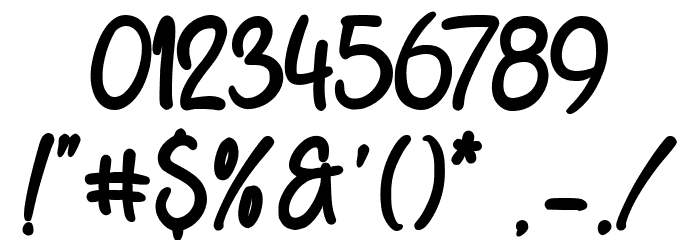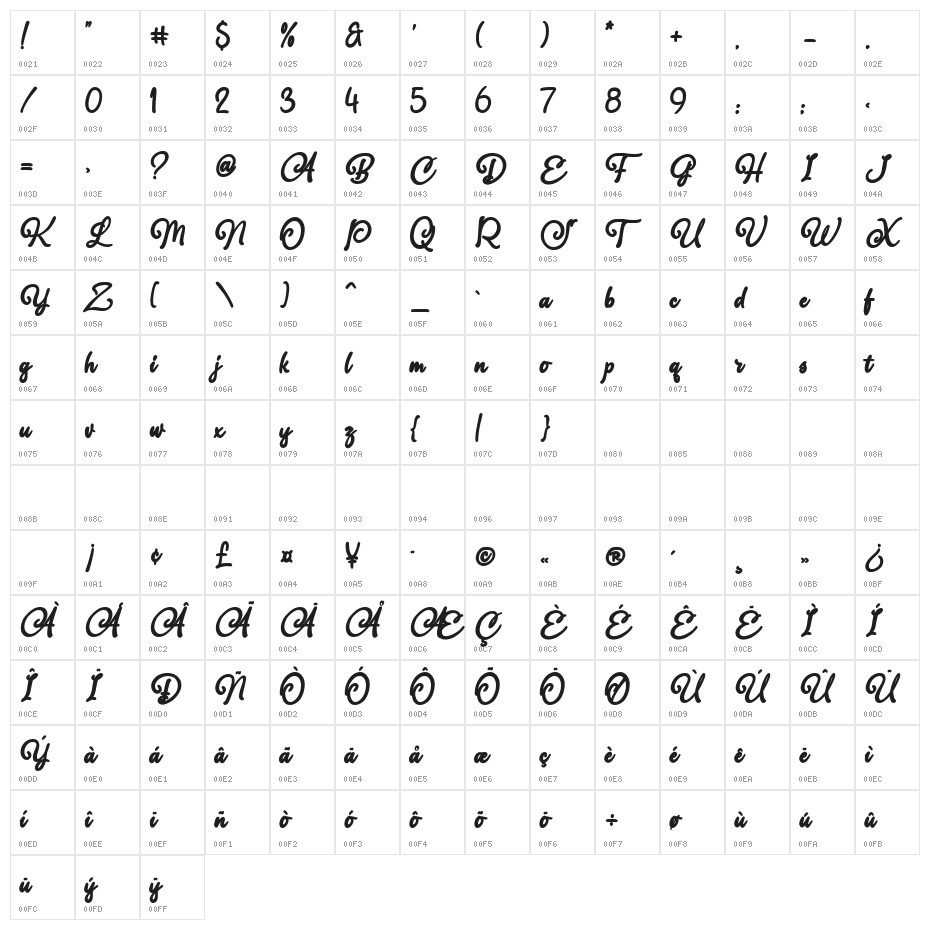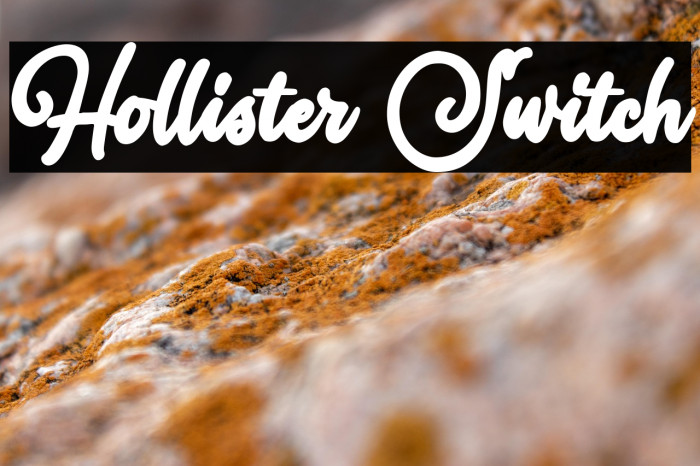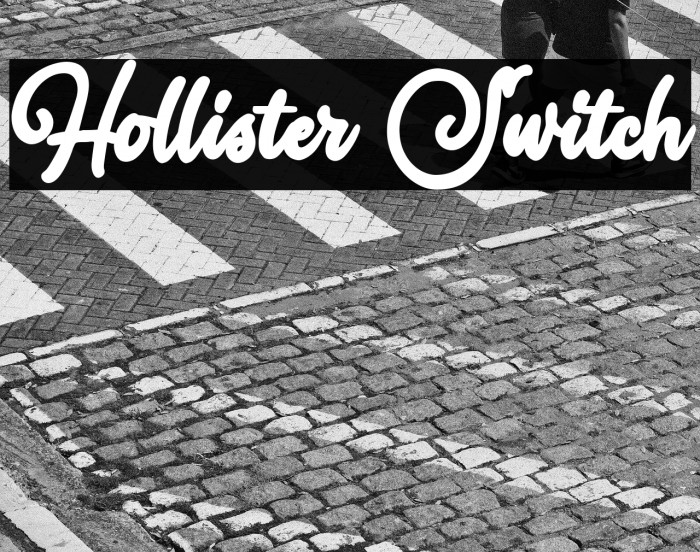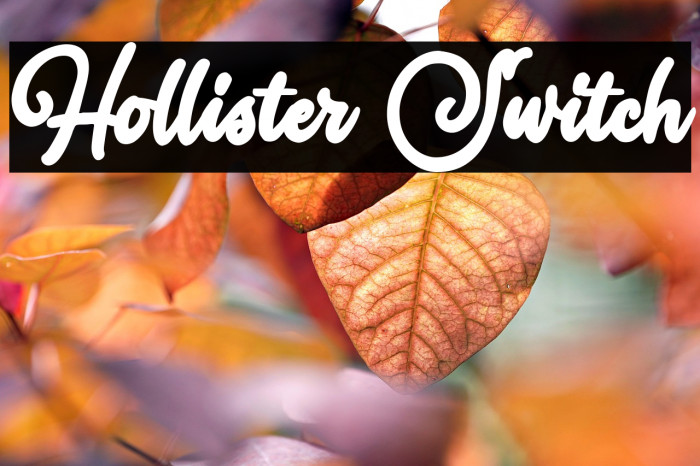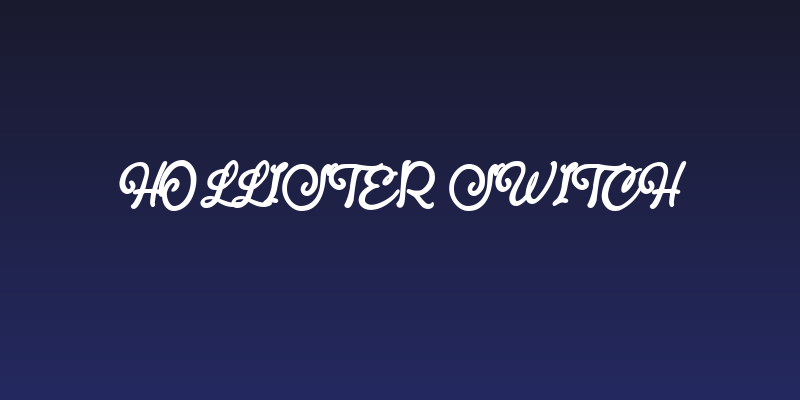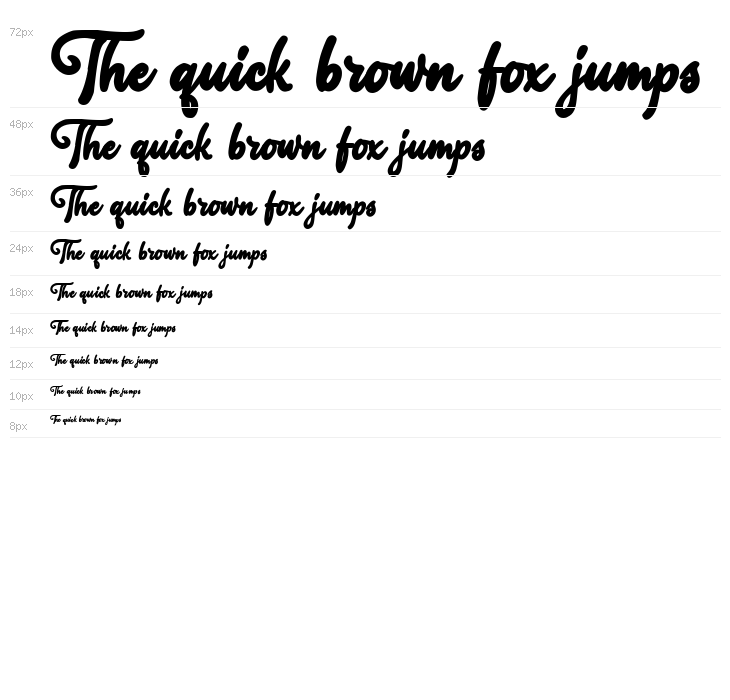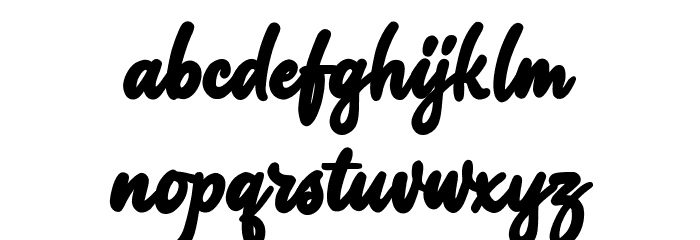
Hollister Switch Font
Hollister Switch Description
This font features a bold, cursive style with a playful and dynamic appearance. The uppercase letters exhibit a flowing script with elegant loops and curves, while the lowercase letters maintain a consistent, rounded form that complements the uppercase. The numbers are bold and clear, maintaining the same cursive style, making them easily legible. Special characters are designed to match the overall aesthetic, with smooth curves and a cohesive look. The font's boldness and fluidity make it stand out, providing a sense of movement and energy.